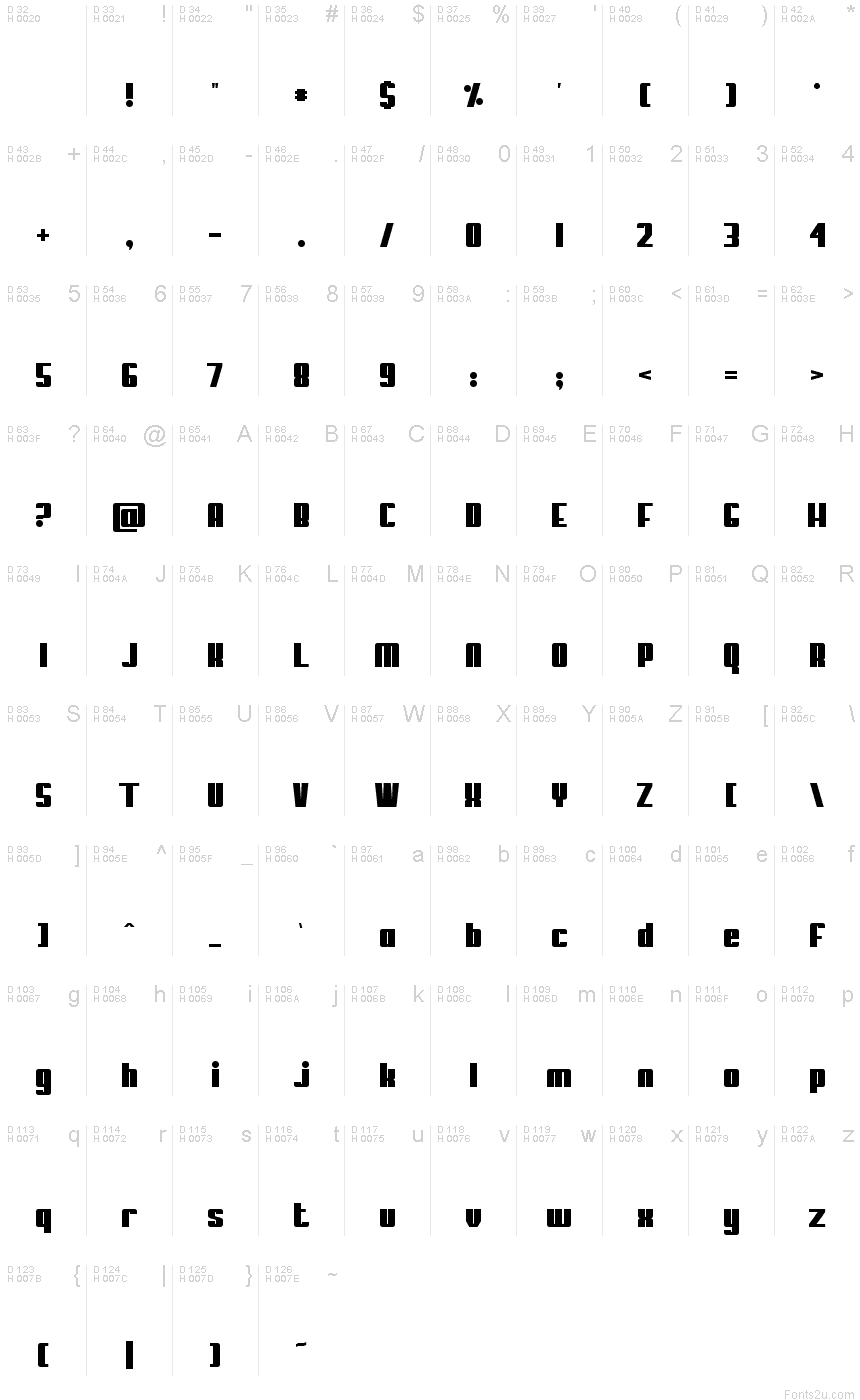
My Puma
My Puma by Samuel Park is a free display font defined by tall black block shapes and narrow vertical cut-ins that carve the lettering into blunt, rounded slabs. That repeated silhouette gives the design a compact, sign-like rhythm, where the inner openings read less like normal counters and more like precise slots punched into solid forms.
The font makes sense on posters, album artwork, streetwear graphics, game titles, and short logo-style headlines where that dense mass can do the talking. Because the shapes stay simple and tightly coordinated, My Puma can also anchor packaging or event flyers that need a stark, graphic wordmark rather than a decorative flourish.